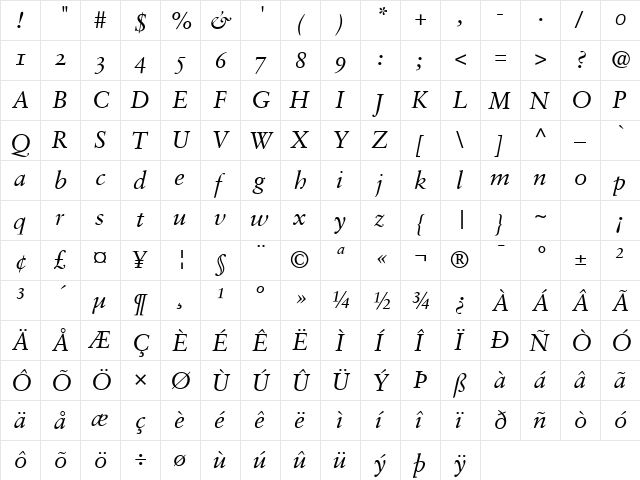
Garamond Retrospective OS SSi Normal
Design Context for Garamond Retrospective OS SSi Typeface
Garamond Retrospective OS SSi wears its vintage influences proudly, with letterforms that recall mid-century signage, classic packaging, and nostalgia-driven design.
Perfect for vintage-inspired branding, retro packaging, nostalgia campaigns, and period-accurate editorial design.
Font Pairing: Combine Garamond Retrospective OS SSi with a simple slab or neutral sans — period-accurate companions reinforce the vintage feel without competing for attention.
Pro Tip: Use Garamond Retrospective OS SSi for headlines and pull quotes rather than body copy — its personality is best appreciated in short, focused bursts.